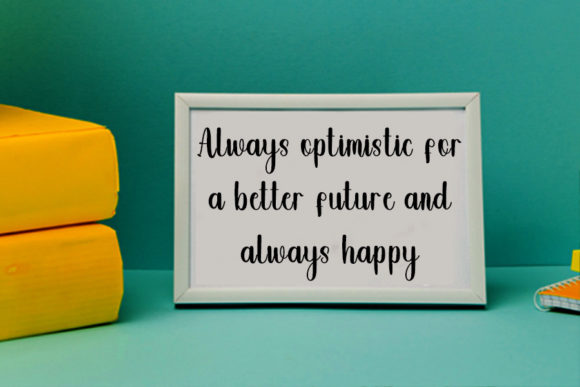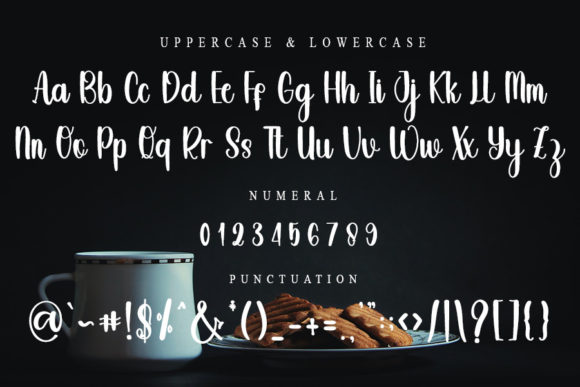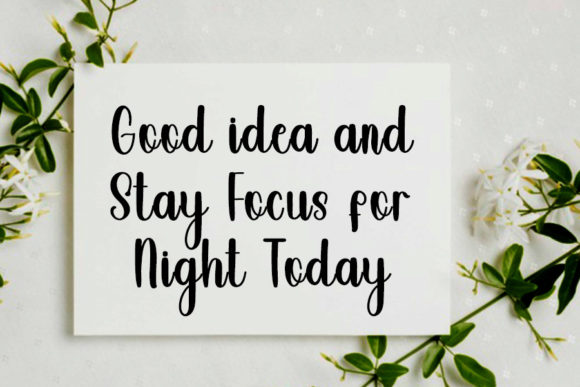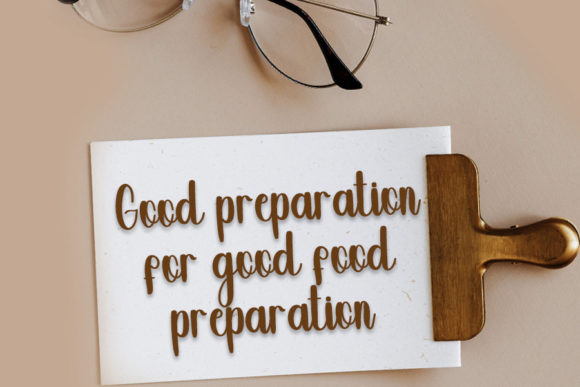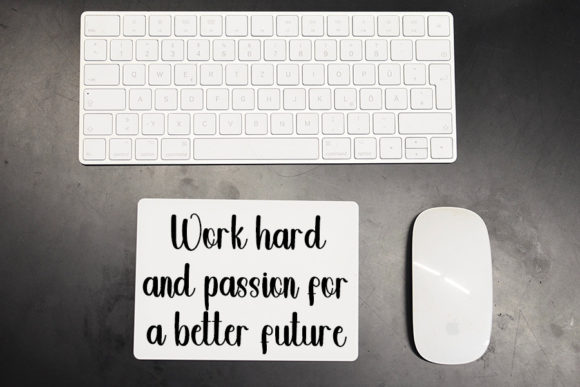
Biscuits Font: Elevate Your Designs with a Timeless Classic
In the world of typography, a well-crafted font can make all the difference in elevating your designs to the next level. Introducing Biscuits Font, a stylish handwritten font that embodies a contemporary atmosphere and impeccable form. Inspired by timeless classic calligraphy, Biscuits Font is the perfect addition to any designer’s arsenal.
The Inspiration Behind Biscuits Font
Biscuits Font draws its inspiration from traditional calligraphy, with a modern twist. The font’s creator aimed to strike a balance between elegance and playfulness, resulting in a unique and versatile typeface. The result is a font that exudes sophistication and refinement, making it ideal for a wide range of design applications.
Key Features of Biscuits Font
So, what sets Biscuits Font apart from other fonts? Here are some of its key features:
- Balanced and Varied: Biscuits Font boasts a perfectly balanced stroke width, neither too thin nor too thick. This balance, combined with its varied letterforms, creates a visually appealing and dynamic text.
- Contemporary Atmosphere: Despite being inspired by classic calligraphy, Biscuits Font has a distinctly modern feel. Its clean lines and subtle flair make it perfect for designs that require a touch of sophistication.
- Impeccable Form: The font’s attention to detail is evident in its impeccable form. Each letter has been carefully crafted to ensure a seamless reading experience.
Use Cases for Biscuits Font
Biscuits Font’s versatility makes it suitable for a wide range of design applications, including:
- Branding and Logo Design: Create a lasting impression with Biscuits Font’s elegant and sophisticated letterforms.
- Wedding and Event Design: Add a touch of luxury and refinement to your wedding invitations, menus, and other event materials.
- Packaging Design: Stand out on store shelves with Biscuits Font’s unique and eye-catching typography.
- Digital Design: Use Biscuits Font to elevate your digital projects, such as website headers, social media graphics, and more.
Why Choose Biscuits Font?
With so many fonts available, why choose Biscuits Font? Here are just a few reasons:
- Unique and Memorable: Biscuits Font’s distinctive letterforms will help your designs stand out in a crowded market.
- Easy to Read: The font’s clear and balanced design ensures a seamless reading experience, making it perfect for body text and headlines.
- Highly Versatile: Biscuits Font can be used in a wide range of design applications, from print to digital.
Tips for Using Biscuits Font
To get the most out of Biscuits Font, here are some tips:
- Experiment with Font Sizes: Biscuits Font looks great in a variety of font sizes, from large headlines to smaller body text.
- Play with Color: The font’s elegant design pairs well with a range of colors, from bold and bright to soft and pastel.
- Mix and Match: Combine Biscuits Font with other fonts to create a unique and visually appealing typography.
Biscuits Font is a stylish and versatile handwritten font that is sure to elevate your designs. With its balanced and varied letterforms, contemporary atmosphere, and impeccable form, it’s the perfect addition to any designer’s toolkit. Whether you’re working on a branding project, wedding design, or digital project, Biscuits Font is a great choice. So why wait? Try Biscuits Font today and see the difference it can make in your designs!